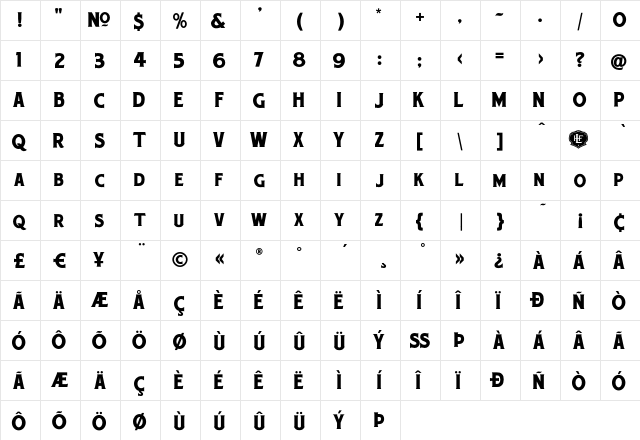
LHFHensler Regular
Design Context for LHFHensler Typeface
LHFHensler offers clean, dependable letterforms without strong stylistic allegiance, making it a practical choice for designers who need flexibility.